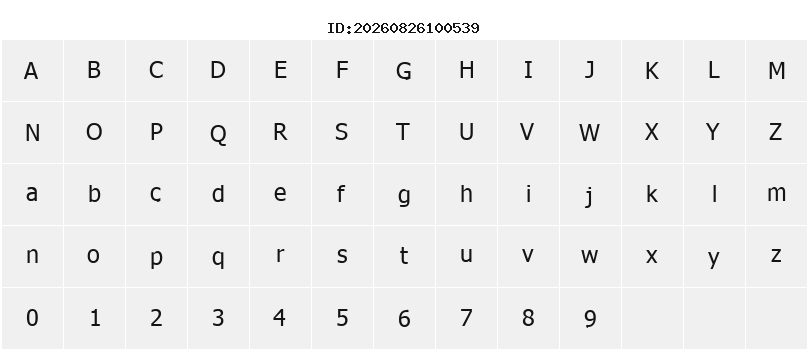
WebTamil Preview
• Font Name: WebTamil
• Font ID: FontMonger:WebTamil Normal
• Full Font Name: WebTamil Normal
• Version: 1.0 Mon Sep 01 12:47:27 1997
• PostScript Name: WebTamilNormal
About WebTamil.ttf
WebTamil.ttf is a modern, elegant sans-serif font designed for ultimate readability and visual harmony. Perfect for branding, headlines, web design, and print materials.